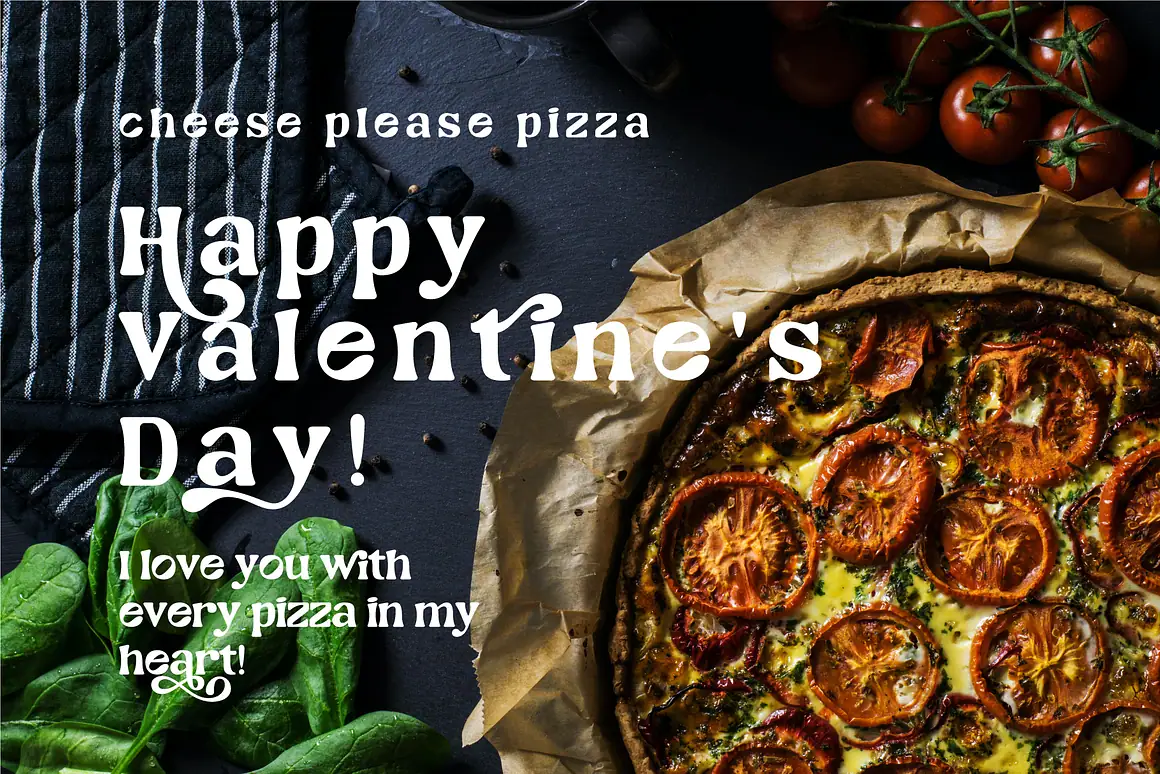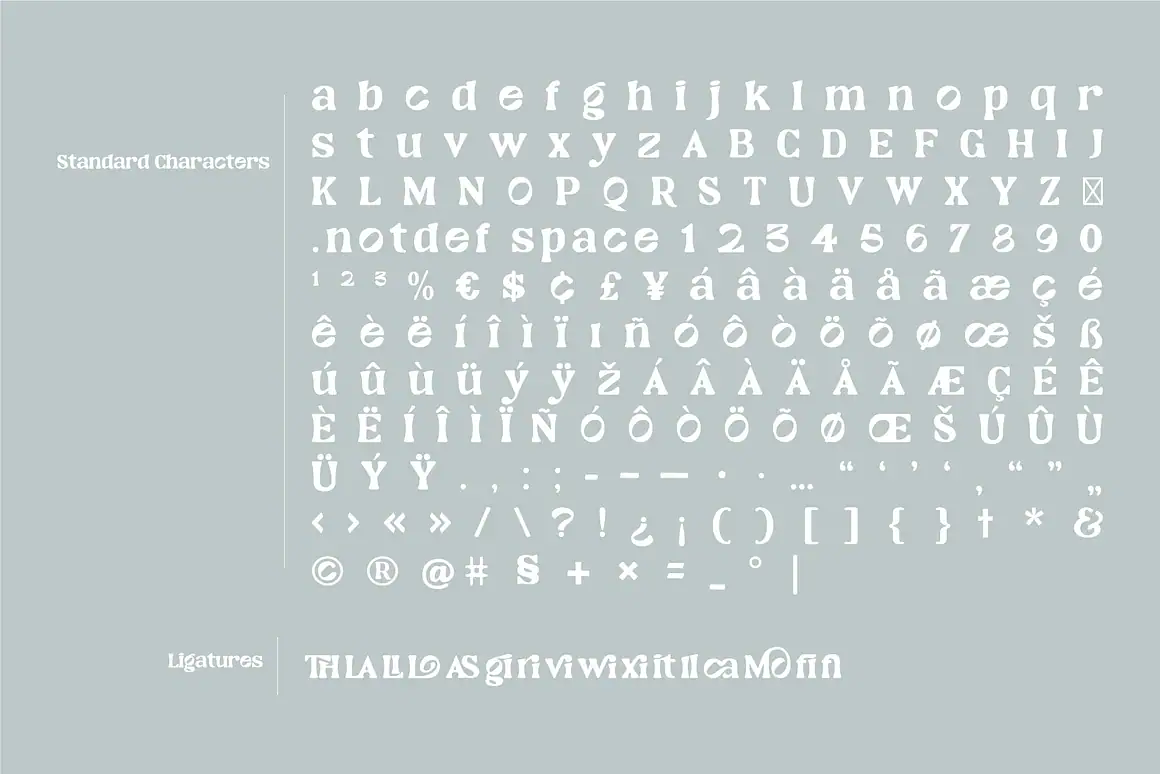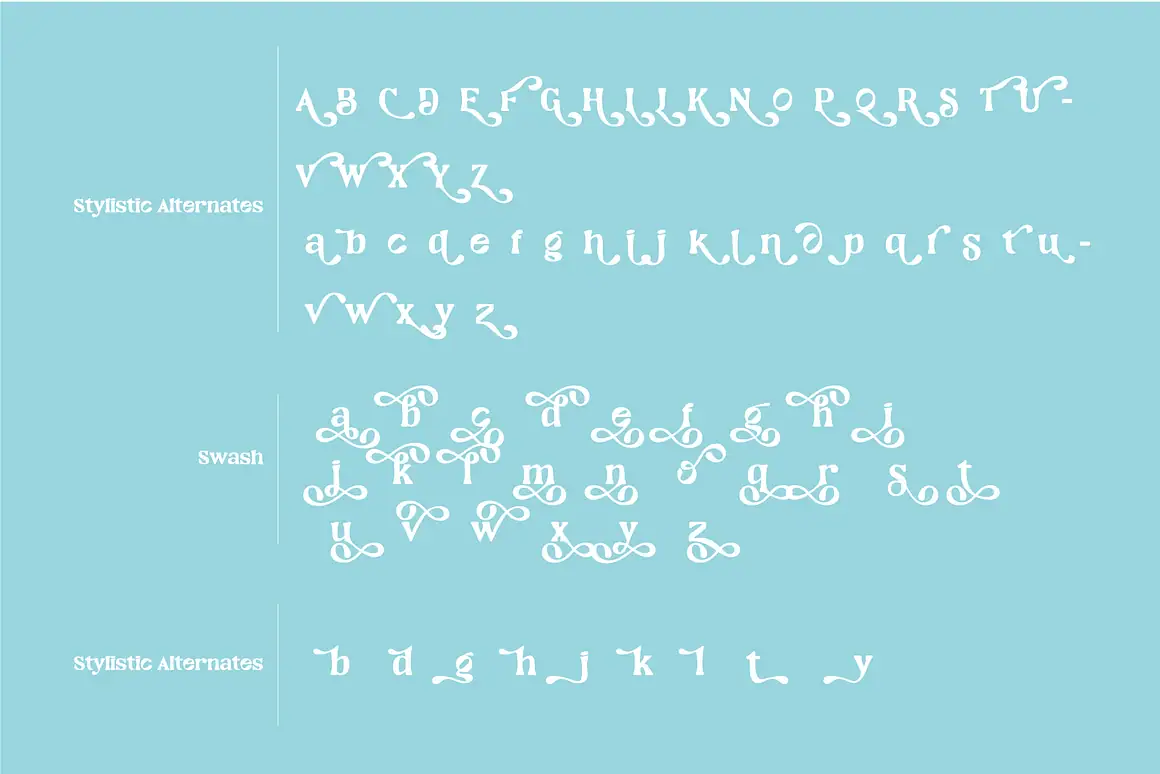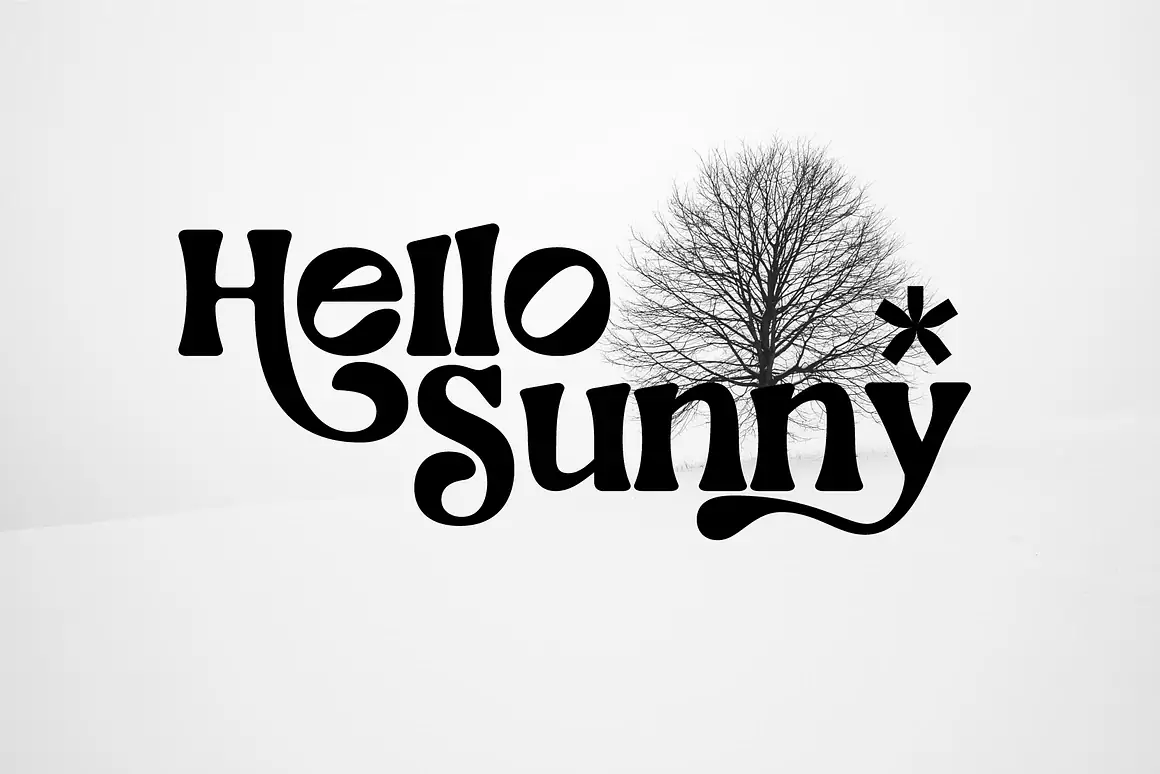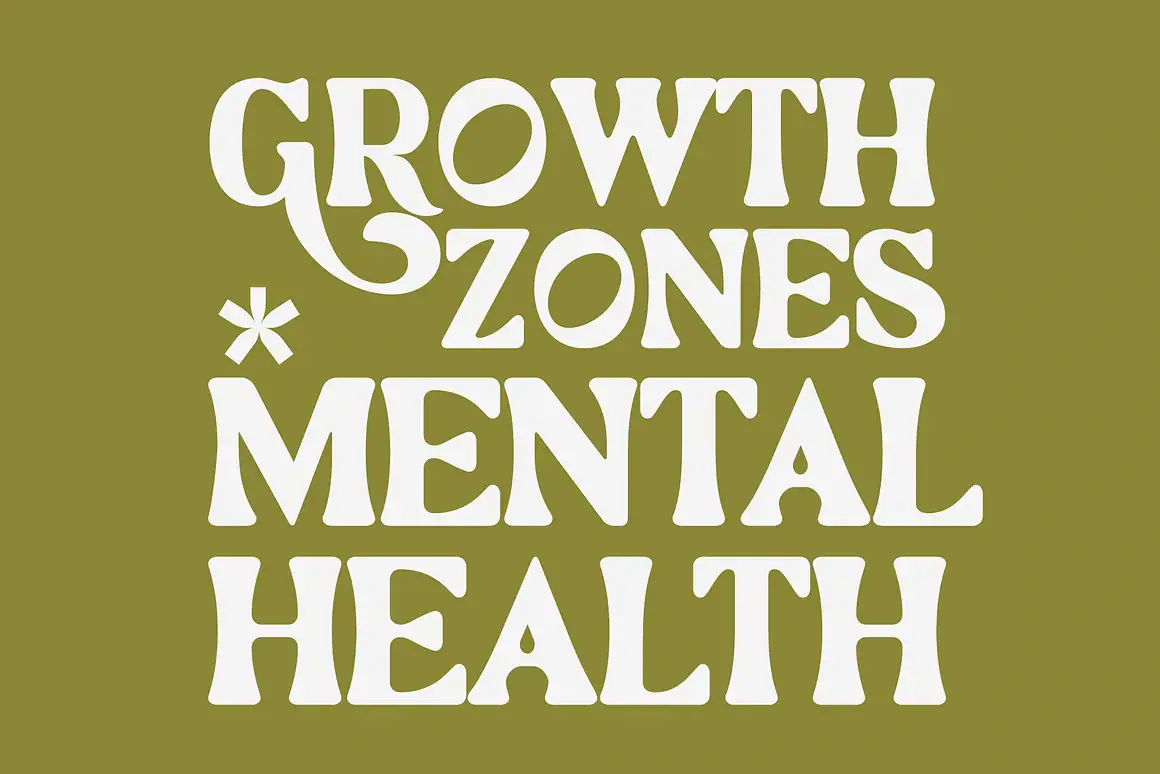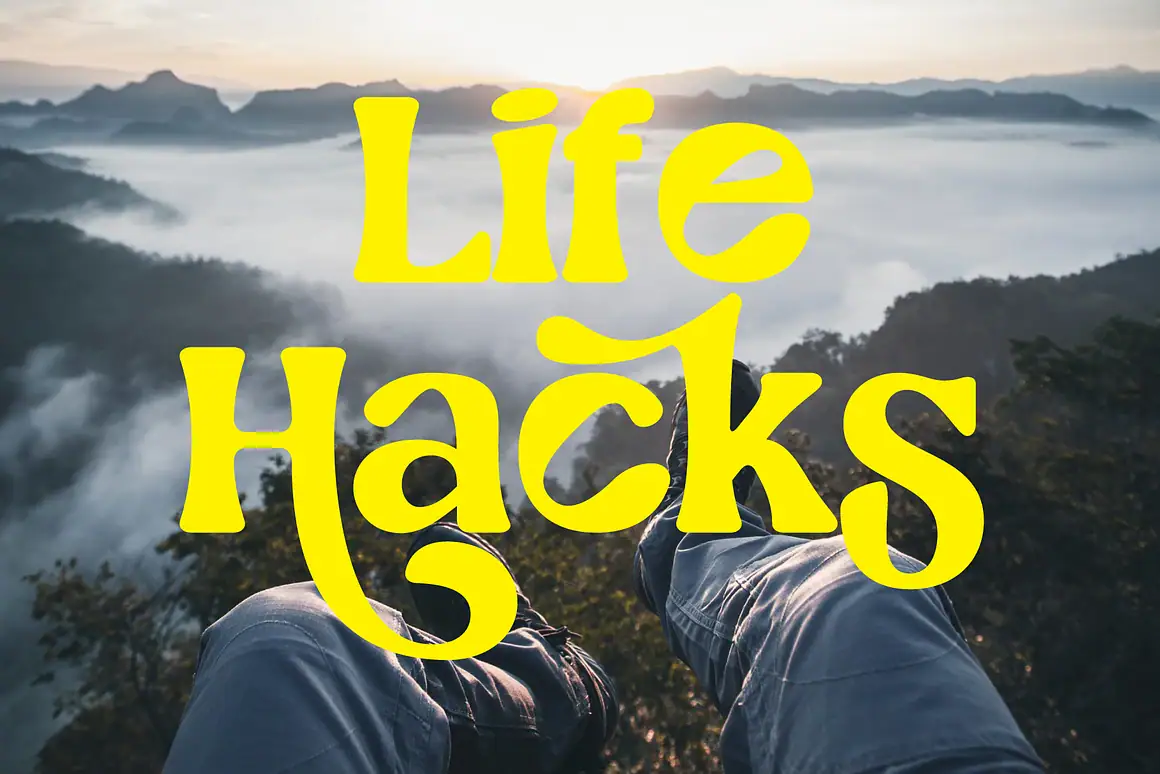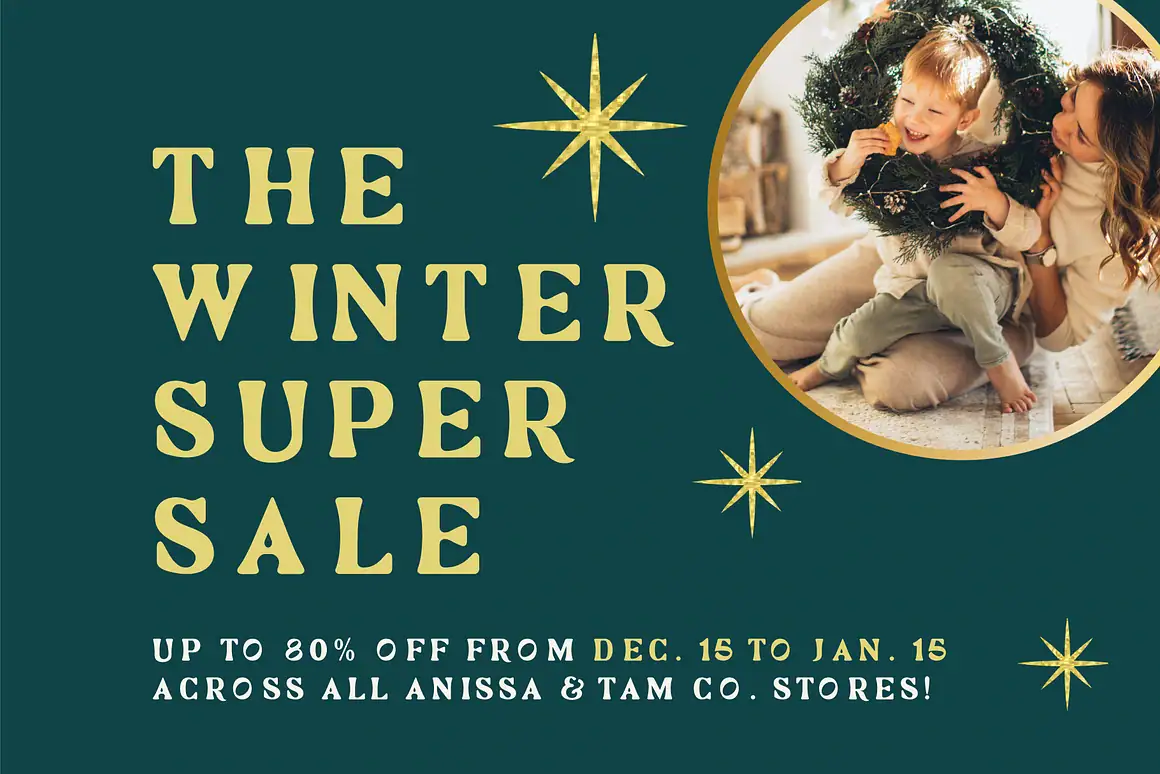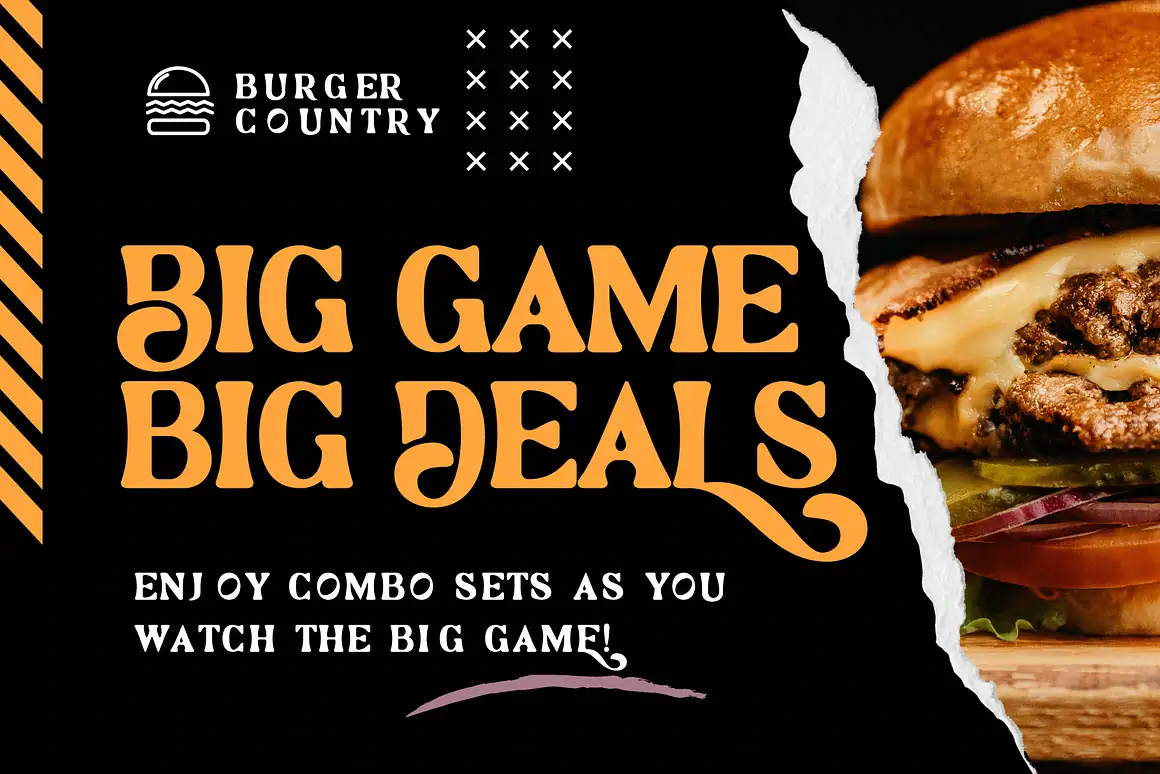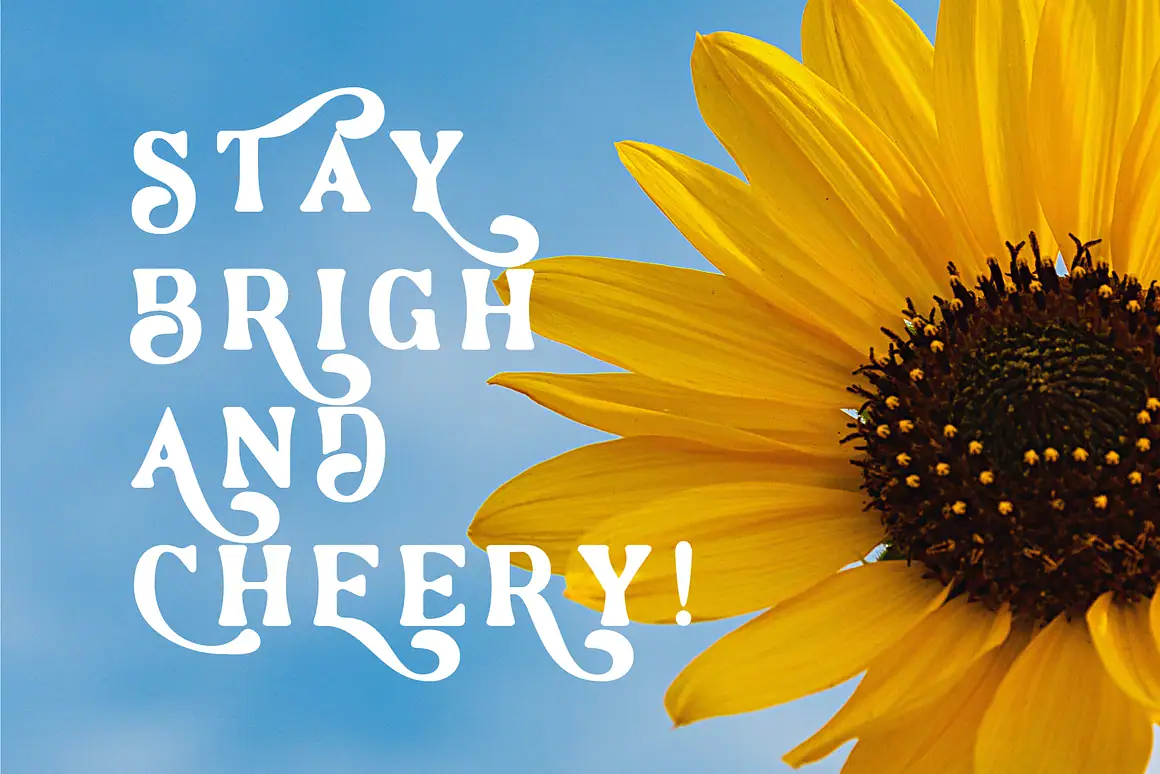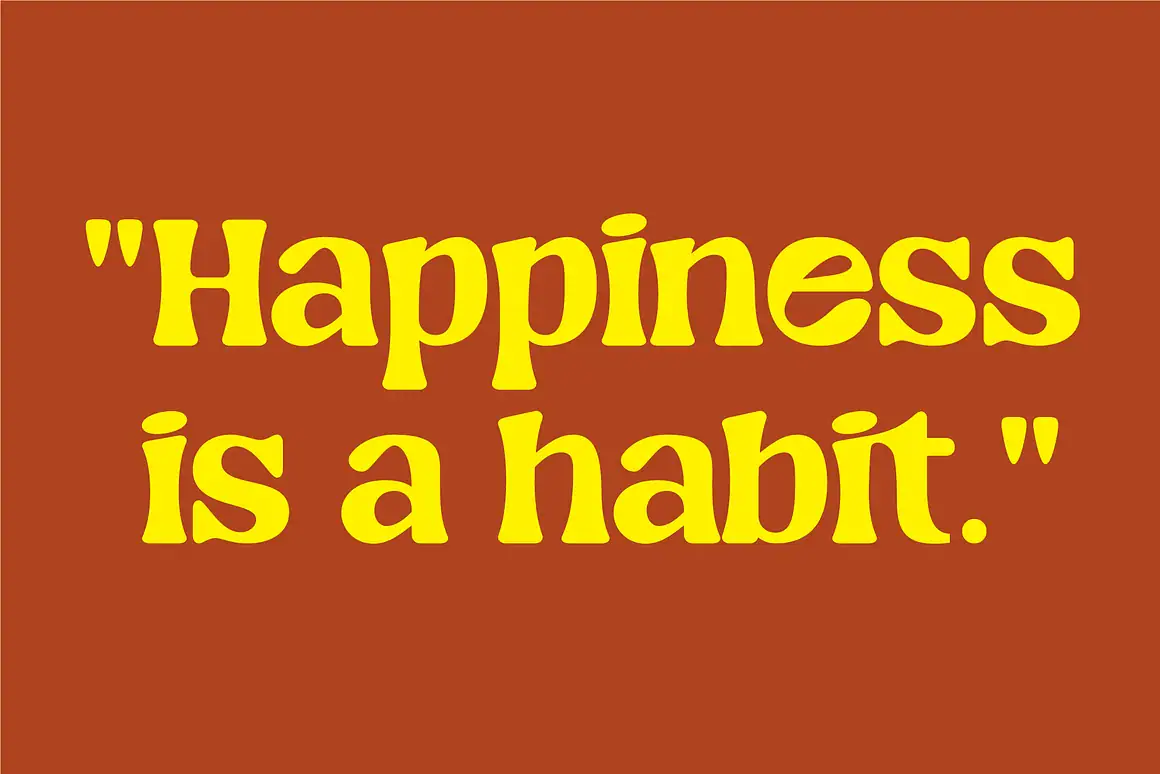
Windec - Serif Display Font
Windec contains 1 style.
Windec – Serif Display Font
Windec is a Serif Display Font inspired by the graceful shape of flower petals and elegant curves. Its organic forms create a unique and sophisticated typeface, perfect for projects that embrace nature, eco-friendly values, and timeless beauty.
This font features discretionary ligatures that give each word a distinctive look, along with elegant swashes that add contrast and refinement. Whether for logos, posters, editorial layouts, or promotional materials, Windec delivers a clean and professional touch.
Windec – Serif Display Font Details
Features:
• Standard glyphs: uppercase & lowercase letters
• Numerals and extensive punctuation
• Discretionary ligatures
• Swashes & stylistic sets
• Multilingual support (ä, ö, ü, Ä, Ö, Ü, ß, ¿, ¡)